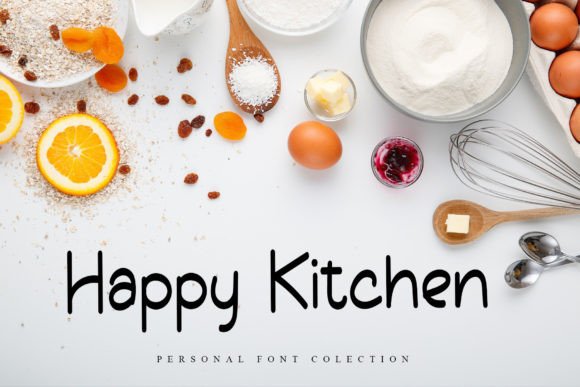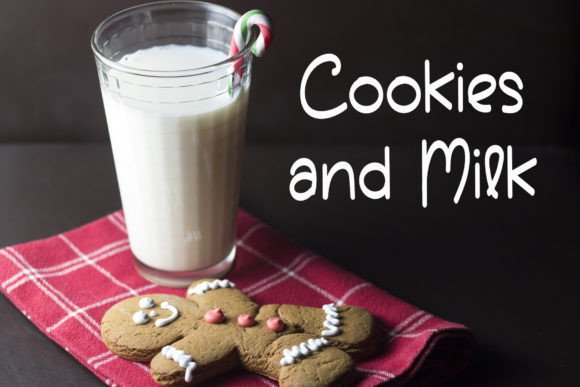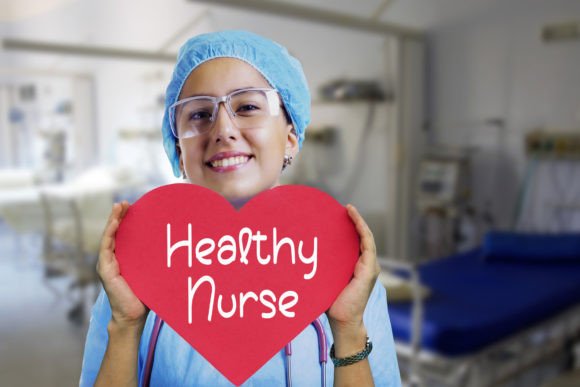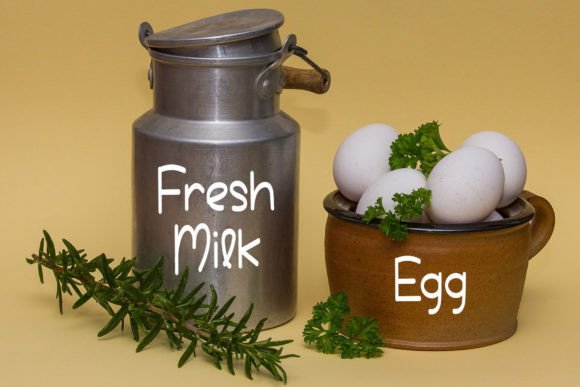
Introduction to Maikel Font
Have you ever stared at a blank canvas, trying to bring your creative vision to life, only to be stumped by the perfect font to match your artistic expression? For designers, finding that elusive perfect font can be the difference between a mediocre project and a masterpiece. And that’s where Maikel Font comes in – a unique and elegant display font that’s sure to elevate any design to the next level.
Whether you’re working on a wedding invitation, a greeting card, or even a billboard, Maikel Font is the perfect design resource to add a touch of sophistication and whimsy to your high-quality creative project. With its varied baseline and natural, hand-made touch, this font is sure to make your ideas look more real and tangible.
Key Features of Maikel Font
- Includes a wide range of characters, including uppercase and lowercase letters, numbers, and special characters, to cater to diverse design needs.
- Designed with a unique aesthetic, making it perfect for adding a touch of creativity to your project.
- Perfect for use in digital designs, such as web pages, social media graphics, and mobile applications, as well as print materials like business cards and brochures.
Honest Review: Maikel Font
As a designer, I’m always on the lookout for high-quality design resources that can elevate my creative projects. Recently, I stumbled upon the Maikel Font, and I’m excited to share my honest review with you.
- What works well: ✨ The Maikel Font has a clean and modern design that’s perfect for a wide range of creative projects, from logos to typography-based designs. It’s also available for free download, making it an excellent choice for designers on a budget.
- What works well: ✨ The font comes with a transparent background, which allows for seamless integration with other design elements.
- What works well: ✨ The high-quality design and crisp lines make it a great choice for any design project that requires a professional touch.
However, there are a few limitations to consider: ⚠️ The font family is relatively small, with only a few weights and styles available. Additionally, the font may not be suitable for use in very small sizes or at high resolutions.
Overall, I’m impressed with the Maikel Font, and I think it’s a valuable addition to any designer’s toolkit. While it may have some limitations, its high-quality design and free availability make it a great choice for designers working on a variety of creative projects.
Maikel Font is a versatile design resource that can be used in a variety of creative projects, including:
1. Graphic design.
2. Digital art.
3. Branding and marketing materials.
4. Educational materials.
Tips for Getting the Most Out of Maikel Font
To get the most out of Maikel Font, use it with a transparent background to create a clean and modern look. You can also experiment with different font sizes and styles to add
Is Maikel Font suitable for high-quality print projects?
Yes, Maikel Font is designed to be high-quality and suitable for print projects. It features a clear, legible design that will look great on paper or other print materials. However, please note that the quality of the print output may depend on the specific printing equipment and settings used.